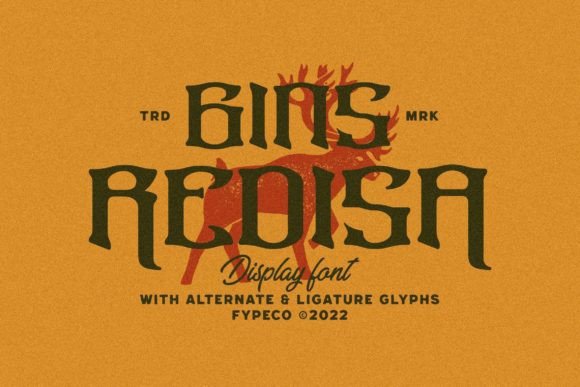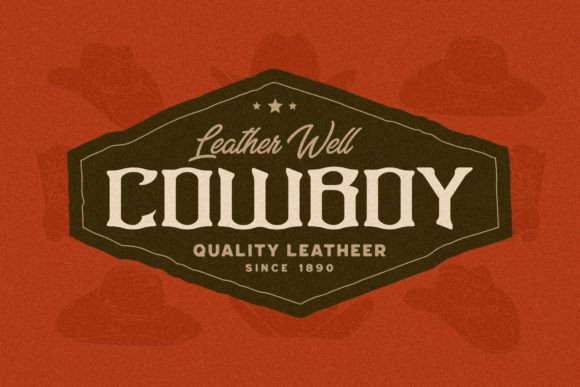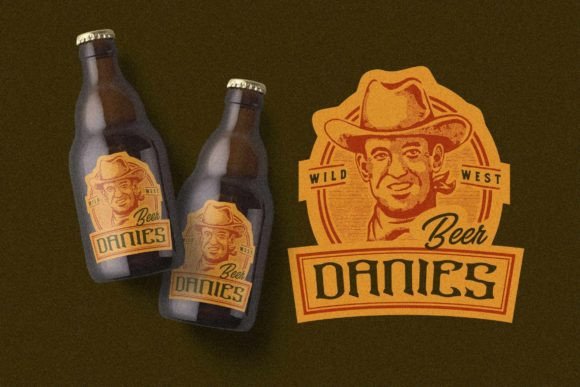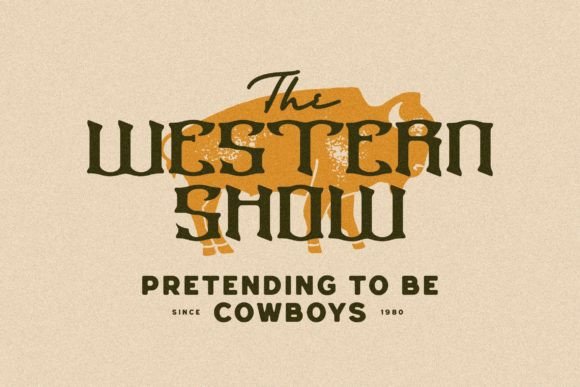
Gins Redisa Font: A Vintage Western Display Font for Creative Branding
About the Gins Redisa Font
The Gins Redisa Font is here to transform your projects with its distinctive character and style. Gins Redisa is a retro and western-looking display font. This unique and vintage font can easily become your favorite. It can be used for books, magazine covers, social media posts, invitations, and so much more! So add this to your creations and take your designs to the next level!
Gins Redisa’s retro-western style shines brightest in headlines, posters, and branding applications where its bold character makes a statement. It’s ideal for projects evoking a vintage or Americana feel, such as whiskey labels, concert posters, or Western-themed apparel branding. However, its highly stylized forms make it unsuitable for body text or UI elements requiring high readability.
The font’s personality is confident and rugged, lending itself well to projects that require a strong visual presence. To soften its boldness, pair Gins Redisa with a clean sans-serif like Futura or a slightly more playful script font such as Pacifico for a balanced aesthetic.
For a more refined look, consider pairing it with a classic serif like Garamond, creating a contrast between the vintage-inspired display font and a timeless, elegant serif. Avoid pairing it with other similarly ornate or heavily textured fonts, as this could create visual clutter.
Gins Redisa Font Usage Examples
Gins Redisa Font Example